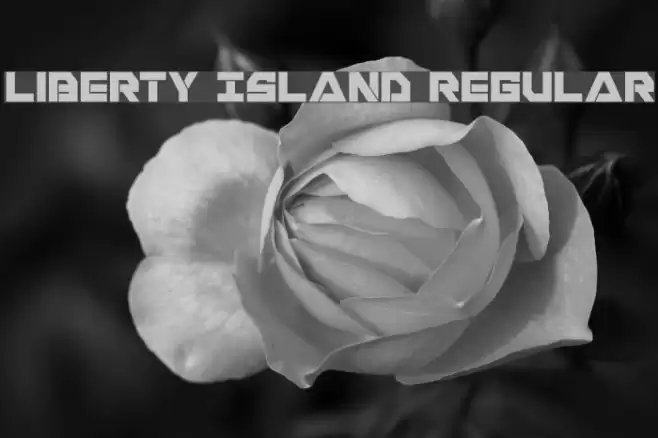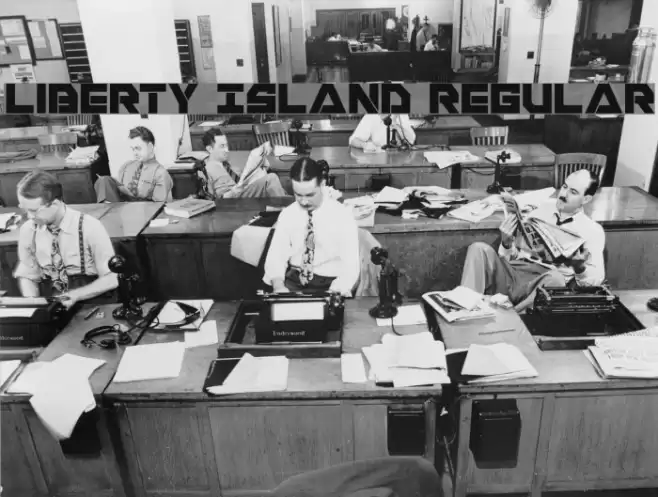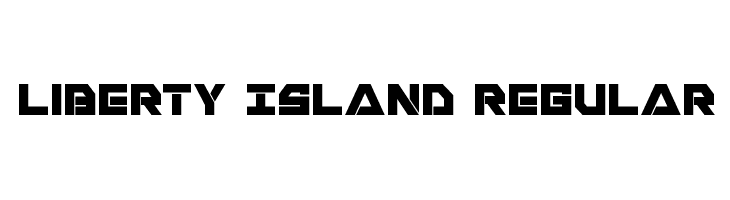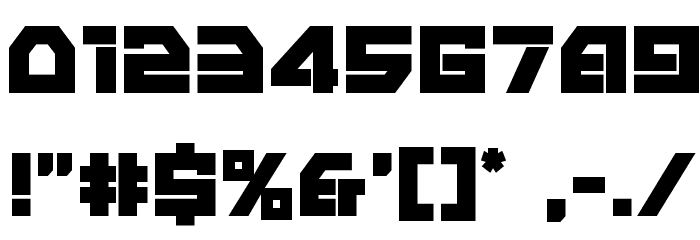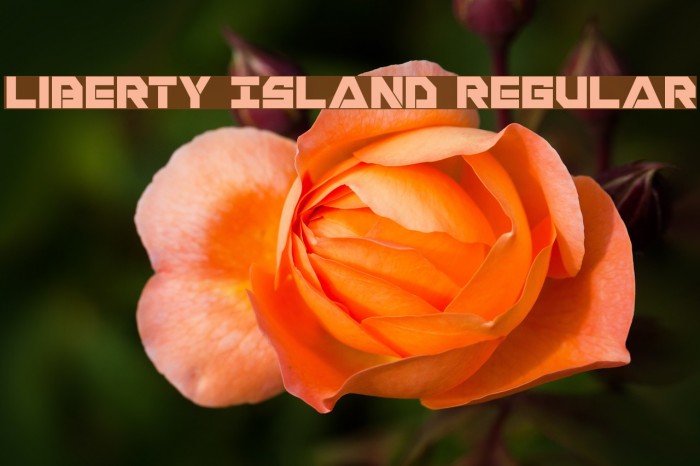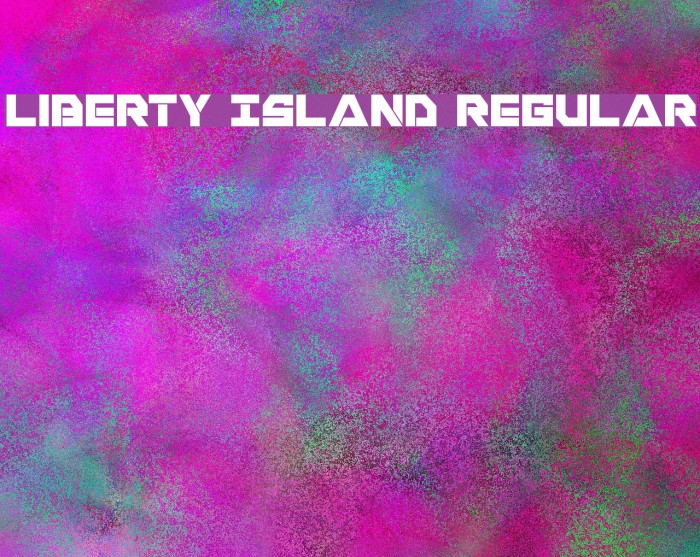
Liberty Island Regular Font
Liberty Island Regular Description
This font features a bold, geometric design with sharp angles and a modern aesthetic. The characters are constructed with a uniform thickness, giving it a strong and impactful presence. The uppercase letters are particularly striking, with a blocky appearance that suggests strength and stability. The numerals and special characters maintain this cohesive style, making it suitable for attention-grabbing headlines or branding. Its distinct and futuristic look makes it ideal for projects that require a modern and edgy feel.
A bold, geometric font with a modern and impactful design from Uncategorized fonts.
- Proposed Projects: Ideal for branding, headlines, posters, and any design requiring a modern, strong aesthetic.